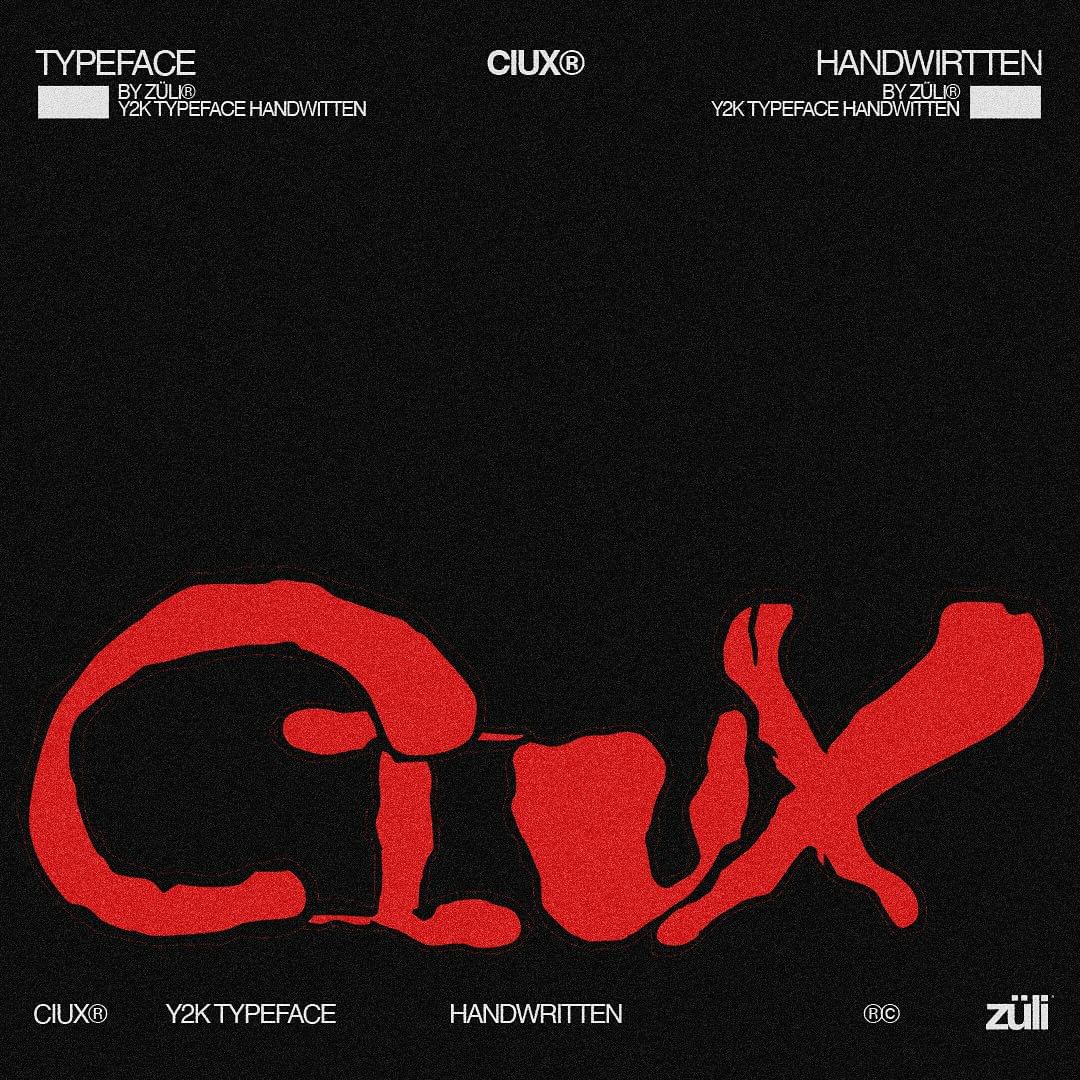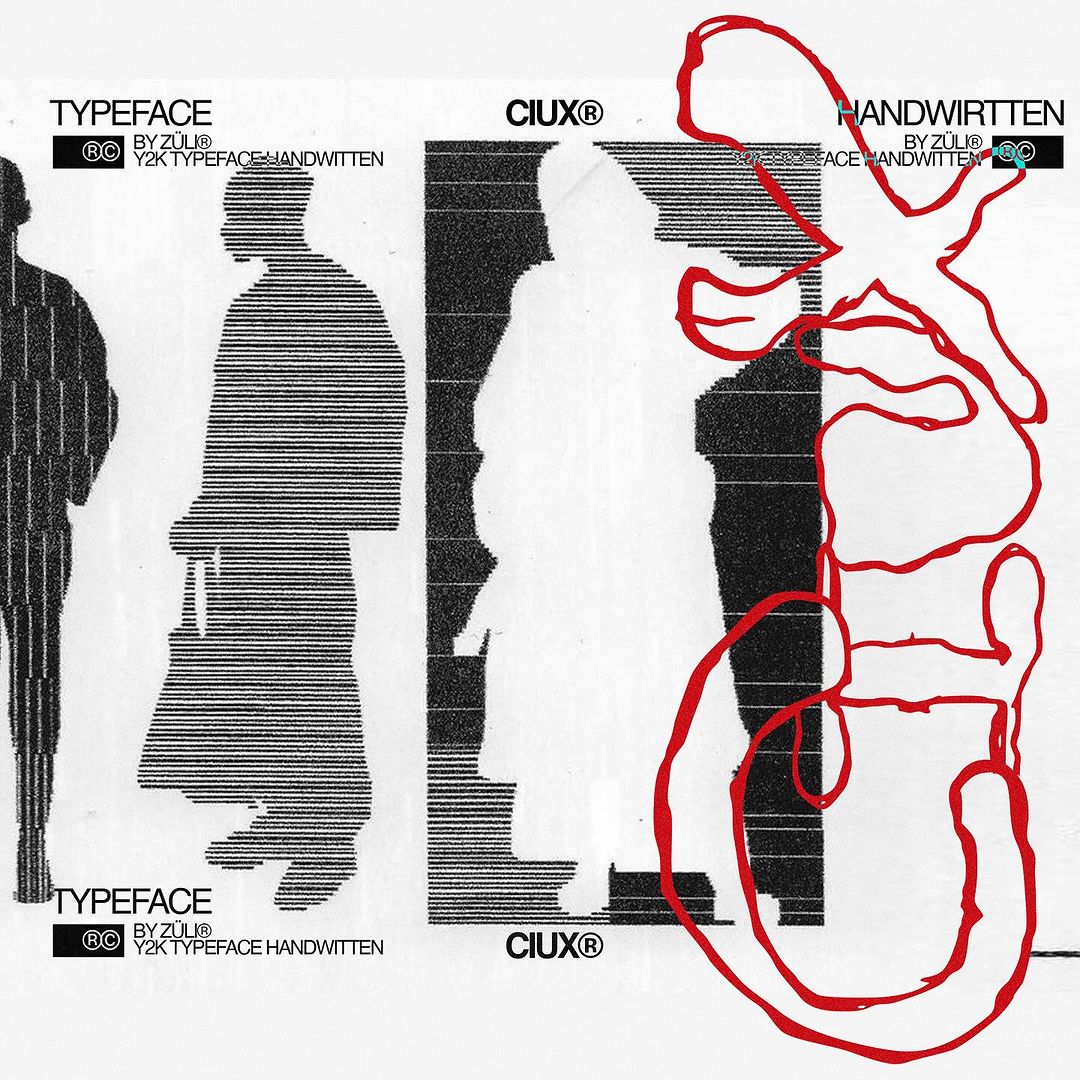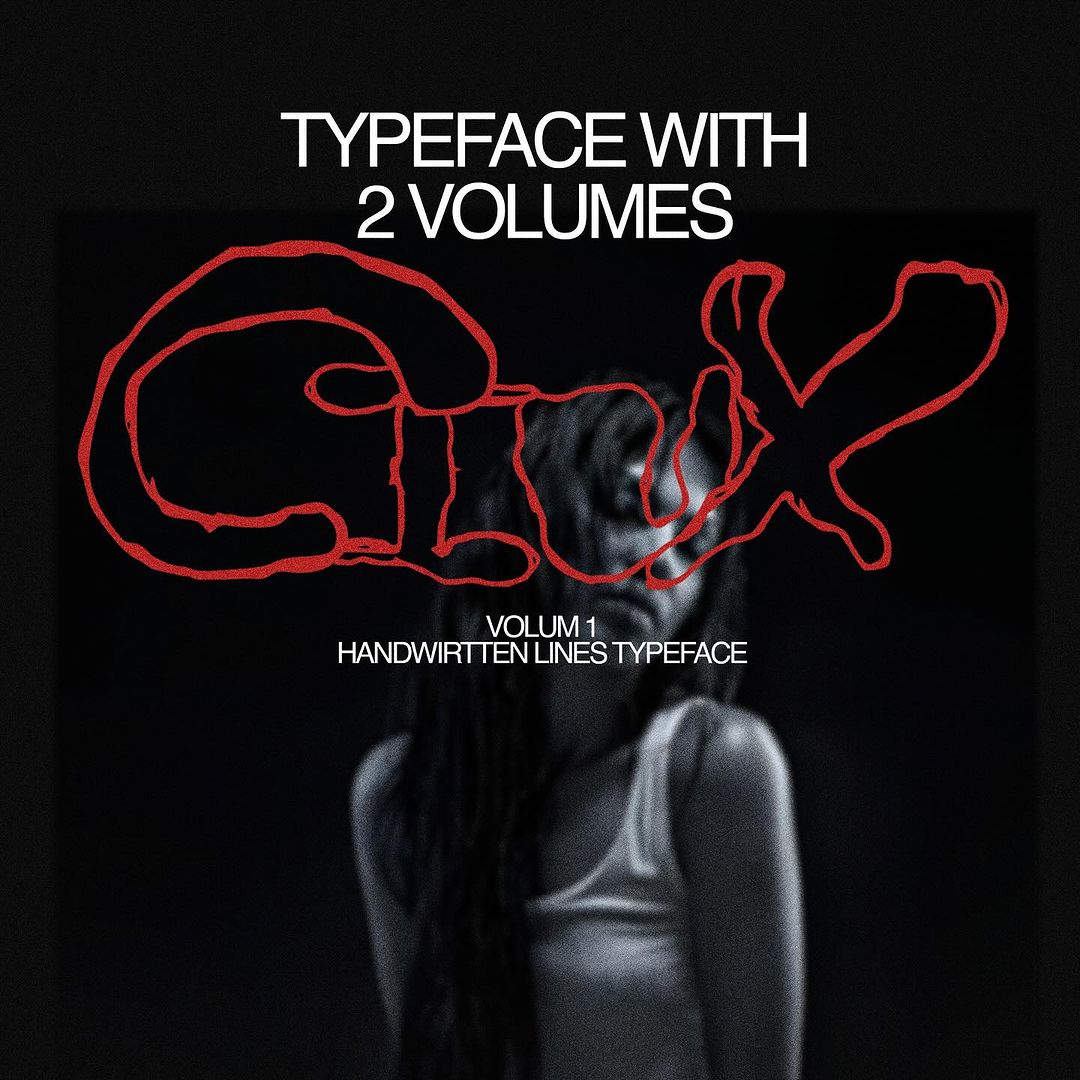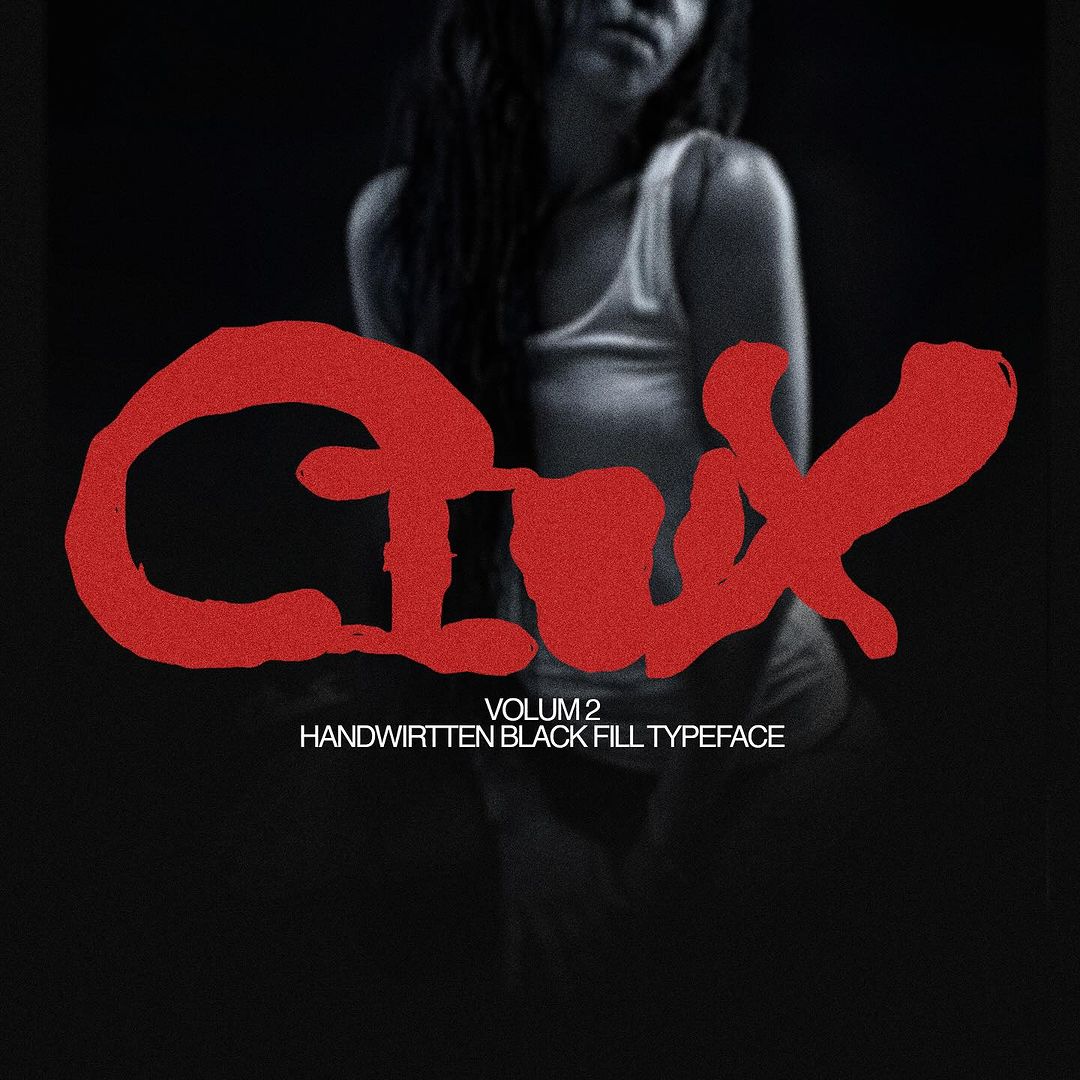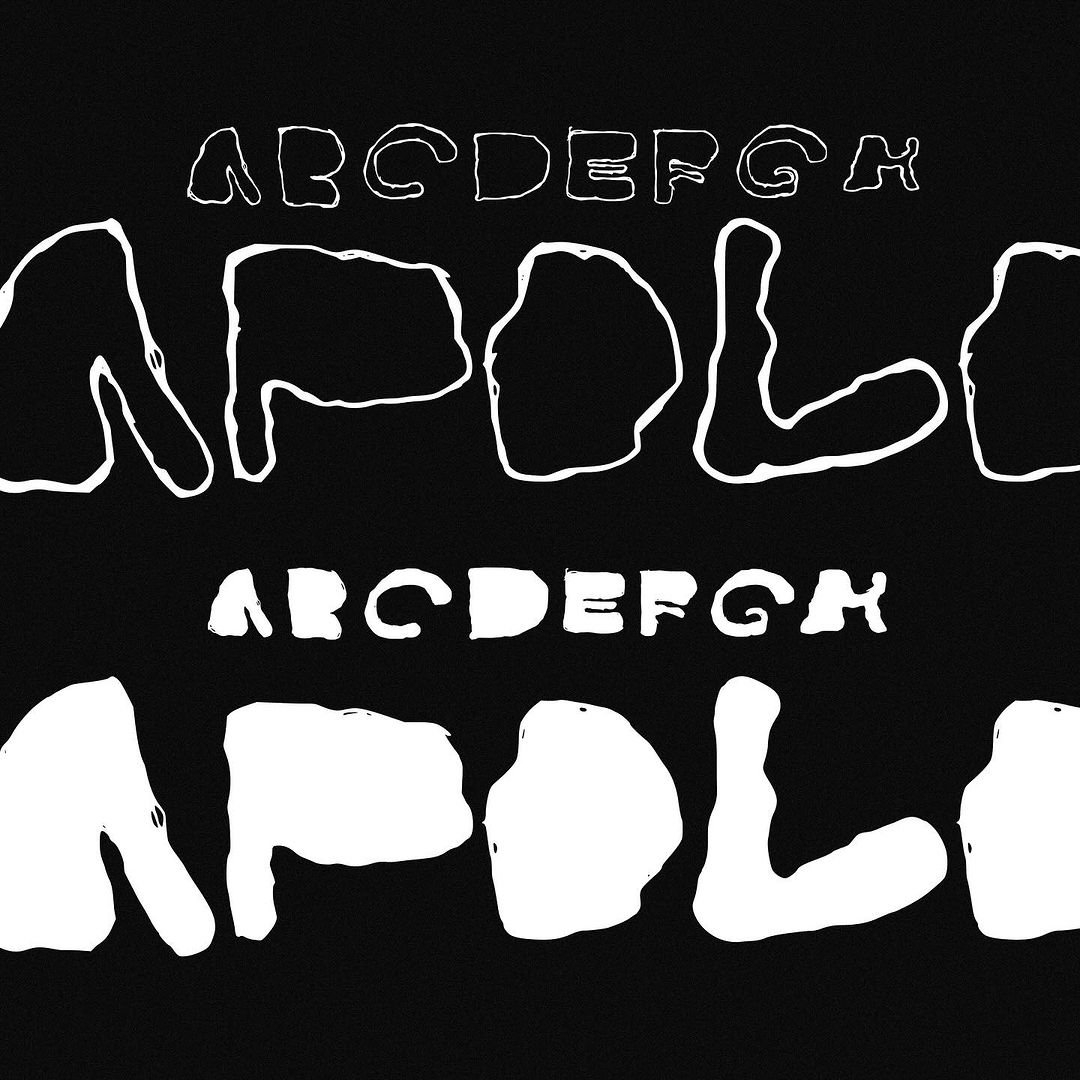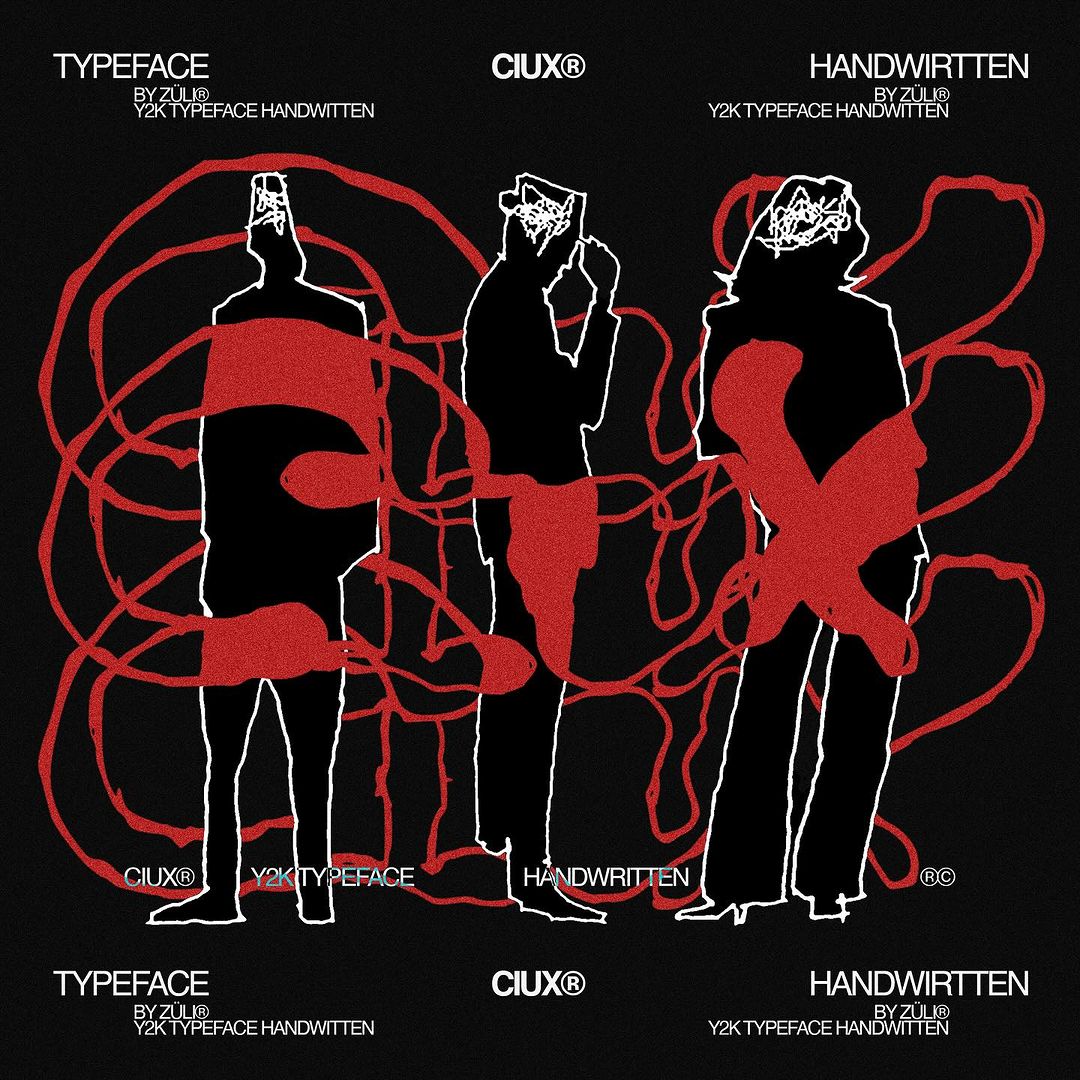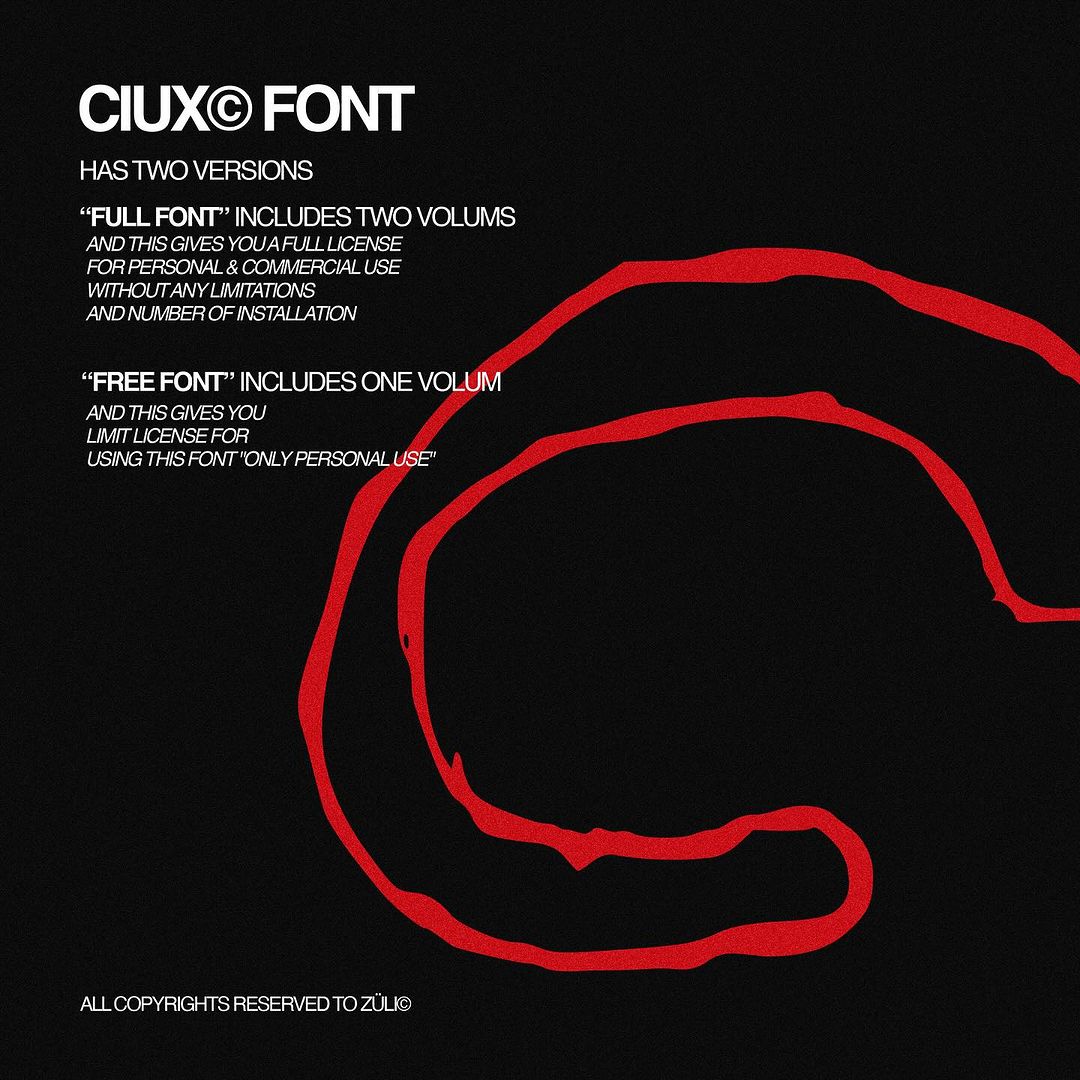
Ciux - Typeface
Font Features:
- Typeface is in Y2k Style
- Typeface with Two Volumes "Fill Black - Stroke Lines"
- Typeface will fit with any design and will improve the design level
The Ciux - Typeface is a Y2K style font that comes with two volumes, "Fill Black - Stroke Lines". It offers unlimited commercial use and installations, making it a versatile addition to any design project.